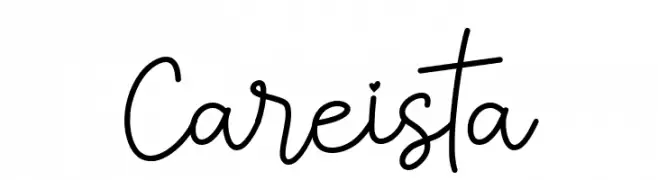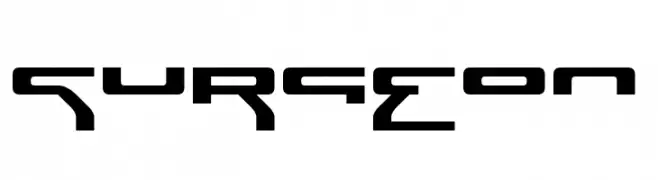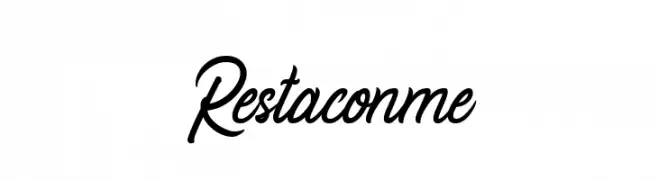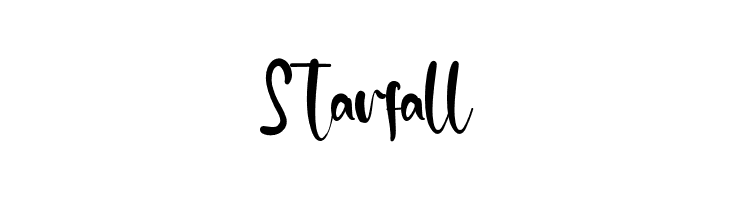
A bold, playful handwritten font with a lively and informal style.
A playful, bold, and condensed font with a whimsical style.
A playful handwritten font with smooth, flowing lines and a casual style.
A futuristic, angular font with a bold, mechanical style.
A bold, dynamic script font with fluid, cursive strokes.
A bold, flowing script font with elegant curves and loops.
An elegant and flowing script font with intricate, decorative letterforms.
A bold, decorative font with unique cut-out shapes and curves.
A dynamic and elegant script font with fluid, connected letterforms.
A classic and elegant script font with flowing, cursive letters.